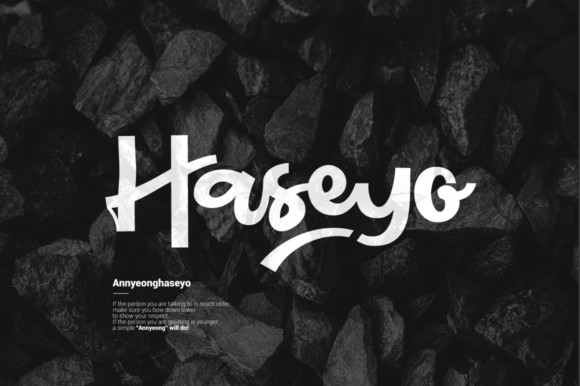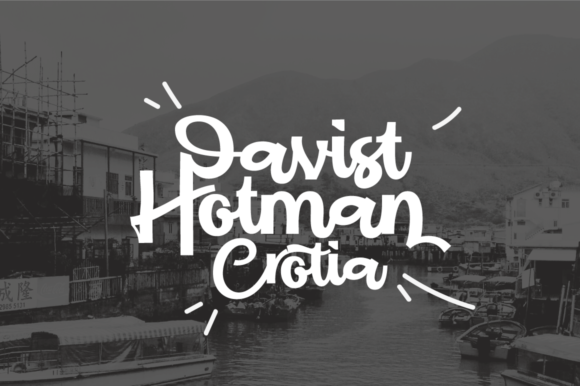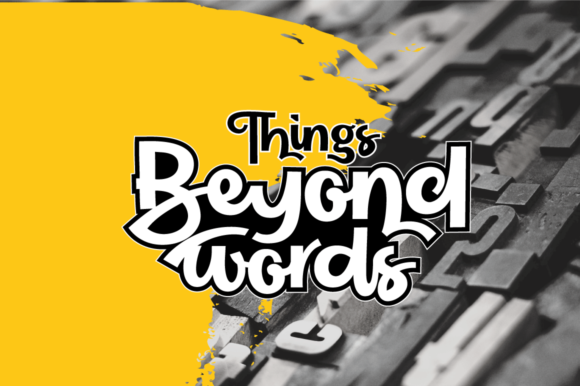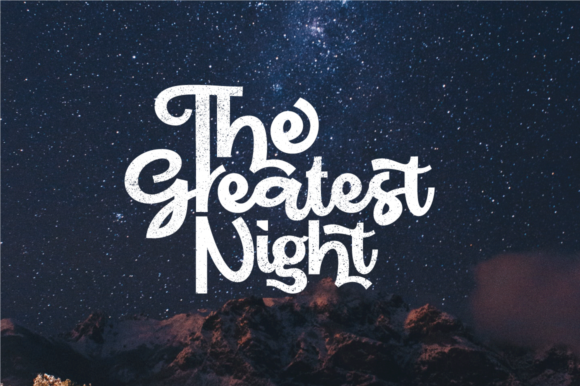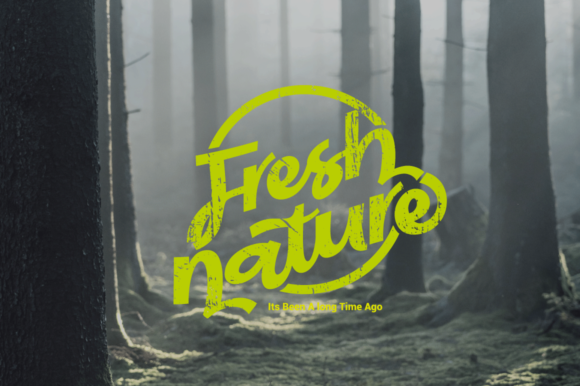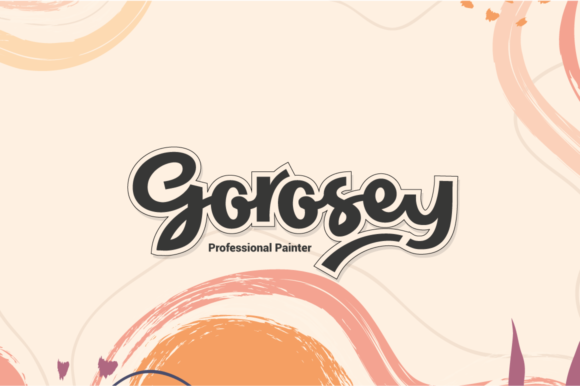
Introduction to Click Brother Script Font
Remember that moment when you finally nailed the design for your best friend’s birthday card? You poured your heart into selecting the perfect font, colors, and layout, and the end result was pure magic. That’s what happens when you have the right design resources at your fingertips. One such game-changer is the Click Brother Script Font, a sophisticated and bold handwritten font that exudes confidence, authenticity, and charm.
| 📌 Product Name | Click Brother Script Font |
| 👤 Author | Grontype |
As a designer, you know how crucial it is to have a high-quality font that can elevate your creative project and make it stand out. The Click Brother Script Font is an excellent addition to your design arsenal, perfect for delivering any message with finesse and personality. Whether you’re working on a free download or a paid project, this font is sure to impress with its transparent background and versatility.
Key Features of Click Brother Script Font
- High-quality design resource with a unique, handwritten style, perfect for creative projects.
- Transparent background, allowing for easy customization and integration into various design elements.
- Unique characteristics, such as subtle flair and movement, add a touch of personality to any design project.
Honest Review: Click Brother Script Font
I recently had the chance to work with the Click Brother Script Font for a creative project, and I must say I was quite impressed. As a designer, I’m always on the lookout for high-quality design resources that can elevate my work, and this font definitely delivers.
Here are some things that work well with this font:
- Its unique, cursive script style is perfect for adding a personal touch to my designs.
- It has a transparent background, making it easy to use in various design contexts.
- The font may not be suitable for formal or professional projects, as it has a more casual, creative vibe.
- The characters may not be as customizable as some other fonts, which could be a limitation for designers who need to make specific adjustments.
Overall, I think the Click Brother Script Font is a great addition to any designer’s toolkit. While it may not be perfect for every project, its unique style and high quality make it a valuable resource for creative projects. I’d definitely recommend it to fellow designers looking for a fun, creative font to add some personality to their work. ✨
The Click Brother Script Font is a high-quality, free download design resource ideal for creative projects. Its unique and elegant style makes it perfect for various applications.
Tips for Getting the Most Out of Click Brother Script Font
Use the font with a transparent background for a clean and minimalist look.
Experiment with different font sizes and combinations for a unique design.
The Click Brother Script Font is ideal for:
- Branding and marketing materials.
- Personalized gifts and cards.
Great Vibes is a modern script font that’s ideal for designing eye-catching posters, social media graphics, and website headers. It’s a free download that offers a transparent background and is perfect for creating a high-quality design resource. Great Vibes has a more casual and relaxed vibe compared to Click Brother Script Font, making it suitable for creative projects that require a laid-back atmosphere.